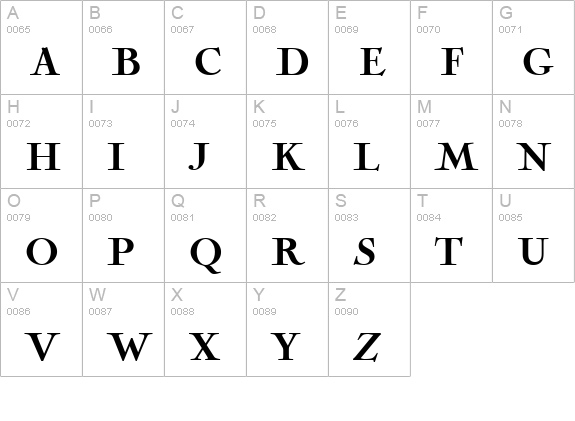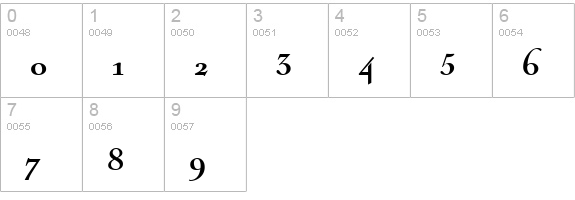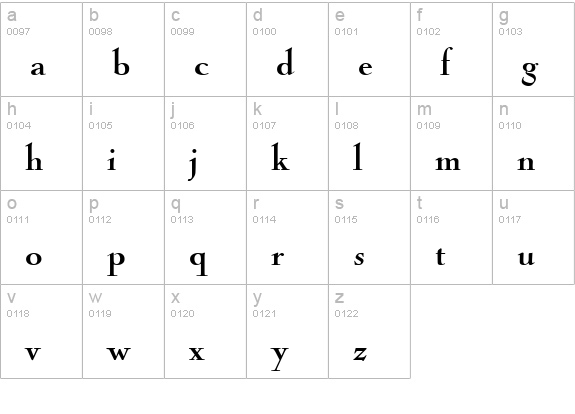
NicolasCocTEEBla Font Details
NicolasCocTEEBla font is a unique and modern typeface that exudes a sense of sophistication and creativity. With its elegant curves and stylish letterforms, this font is perfect for adding a touch of class to your designs. Whether you're working on a branding project, website design, or any other creative endeavor, NicolasCocTEEBla font is sure to make a statement. What sets NicolasCocTEEBla font apart is not only its aesthetic appeal but also its versatility. Whether you're looking to create a sleek and professional look or a more playful and whimsical design, this font has you covered. Its wide range of weights and styles allows you to easily customize your text to suit your specific needs. But the best part? NicolasCocTEEBla font is completely free to download at FontsMarket.com! That's right, you can add this stunning font to your collection without spending a dime. So why wait? Elevate your designs with NicolasCocTEEBla font today and let your creativity shine!